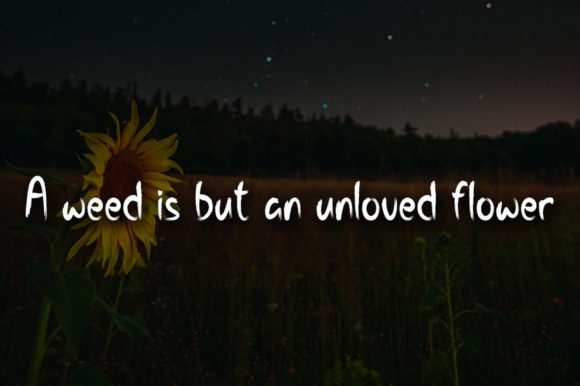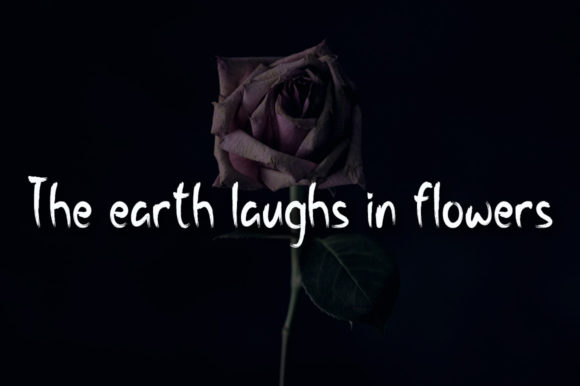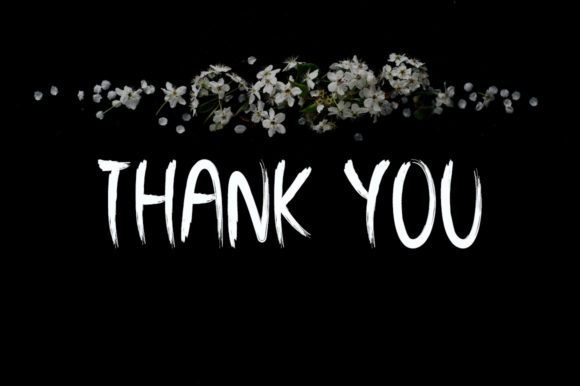
Introduction to Night Flower Font
Night Flower is a cool, brushed and modern handwritten font.
Key Features of Night Flower Font
Why Choose Night Flower Font?
Night Flower Font offers exceptional quality and versatility, making it a valuable addition to your design toolkit. Whether you’re creating for personal projects or commercial use, Night Flower Font delivers professional results.